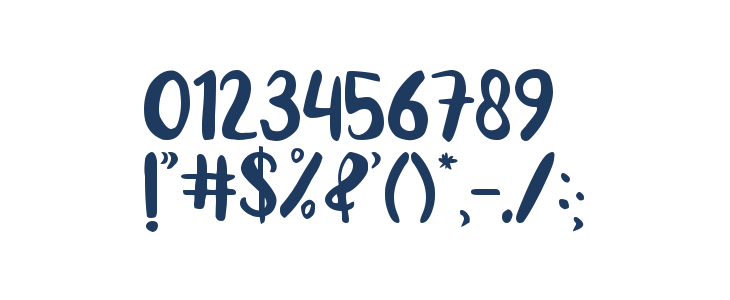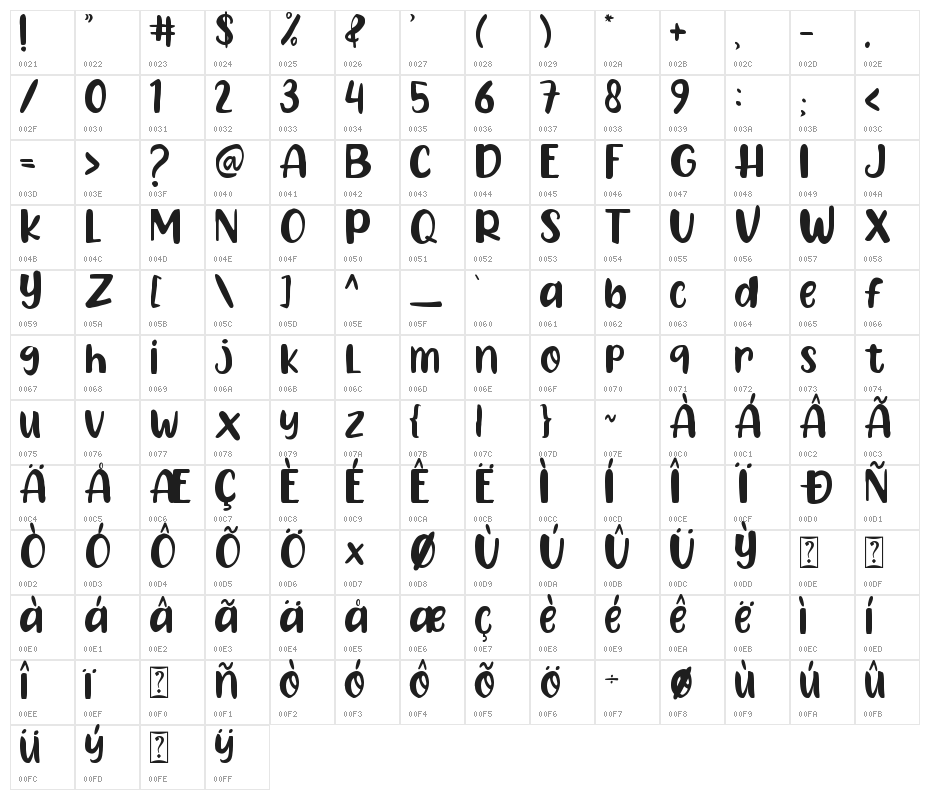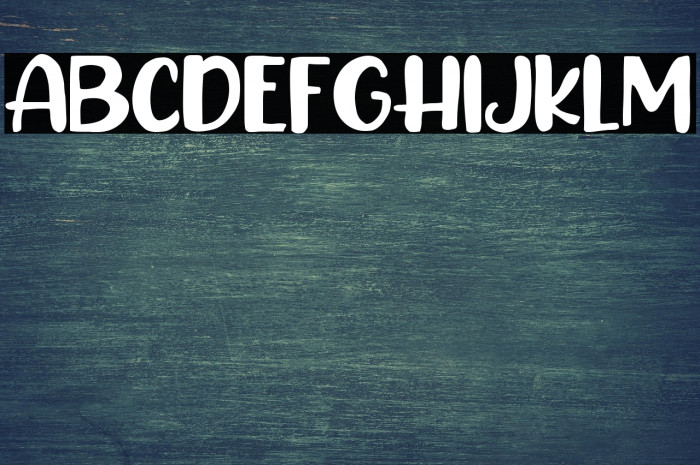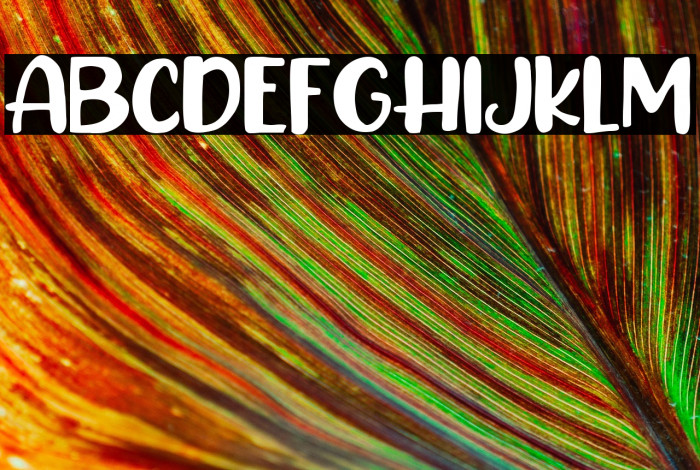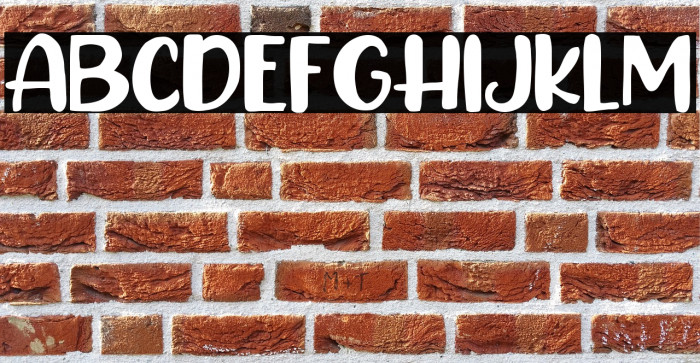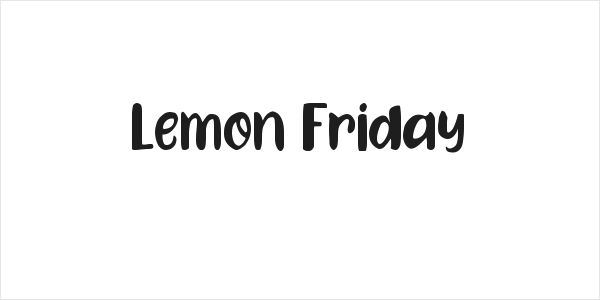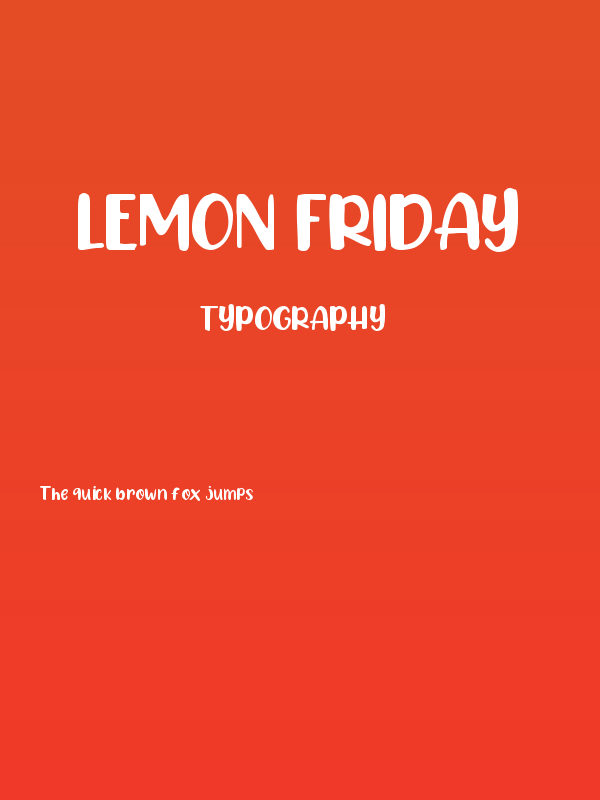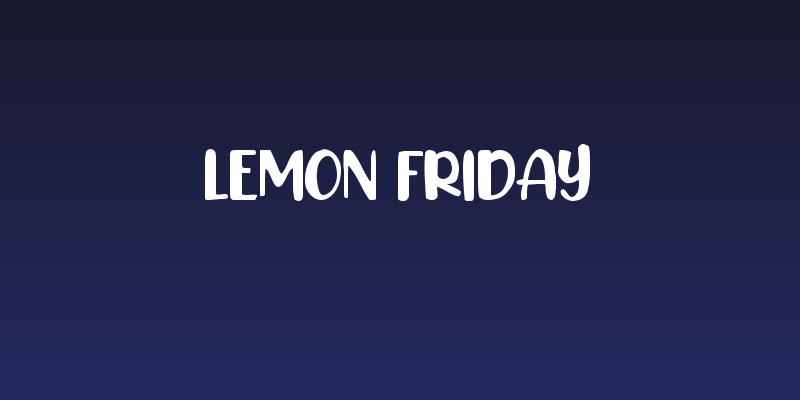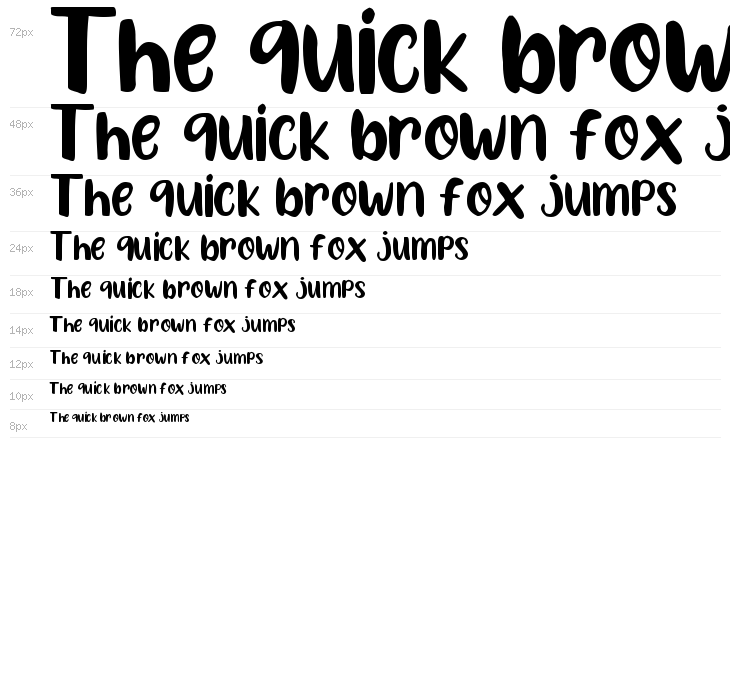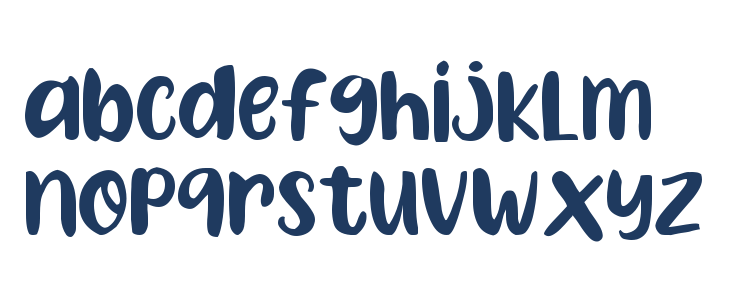
Lemon Friday Font
Lemon Friday Description
This playful and bold font features a handwritten style with a lively and energetic appearance. The characters are rounded and have a consistent thickness, giving them a friendly and approachable feel. The uppercase and lowercase letters maintain a cohesive look, with slightly exaggerated curves and loops that add to the font's charm. The numbers and special characters are equally expressive, making this font suitable for creative and informal designs. Its unique style is perfect for projects that require a personal touch or a fun, casual vibe.
| Overall Style | Playful |
| Use Case | Logos, Headlines, Posters |
| Proposed Projects | Ideal for greeting cards, children's books, playful branding, and social media graphics. |